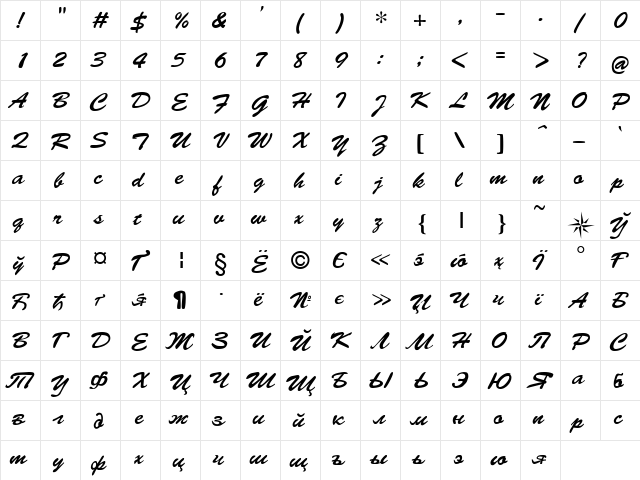
CyrillicBrush Medium
Design Context for CyrillicBrush Typeface
CyrillicBrush flows with the natural rhythm of handwritten lettering, making it ideal for designs that call for warmth and personal expression.
Font Pairing: Combine CyrillicBrush with a simple geometric sans for maximum contrast — the tension between flowing curves and clean structure is a classic typographic pairing.
Pro Tip: Pair CyrillicBrush with a clean sans-serif for supporting text. The contrast between fluid script and geometric structure creates an elegant typographic hierarchy.